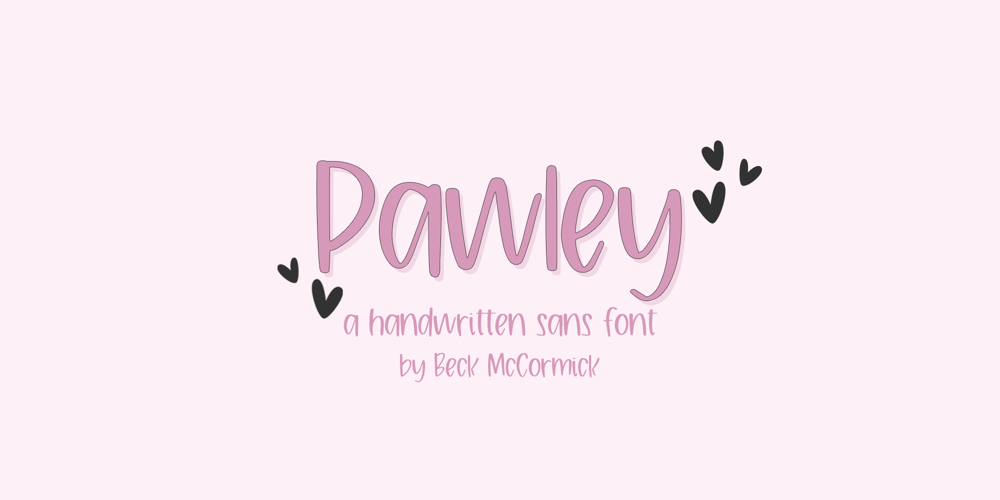
Pawley Handwriting Sans Font Family was designed by Beck McCormick and published by BeckMcCormick. Pawley Handwriting Sans contains 1 styles and family package options. Introducing Pawley, a handwritten sans font. Pawley Sans is neat & tidy, and would be best for digital planner apps like GoodNotes. You can also use it for note-taking apps to make your study notes effortlessly cute, but easy to read. Pawley can also be used for other print design like magazines and flyers or printed marketing materials. This font can also be used for digital marketing materials and social media items!Pawley includes:- full upper + lowercase characters- numbers + punctuation- PUA-encodingExtensive Language Support:Western European, Central European, South Eastern European, South American, Oceanian, Vietnamese, EsperantoPawley Sans can be used with graphic design programs such as Illustrator or Photoshop, word processing programs like Pages or Word, Design Space, Silhouette, Procreate, Canva Pro, Glowforge, GoodNotes, & more. This font is an installable for desktop & laptop machines, as well as iPads or iPhones. See below for links to help with installation.